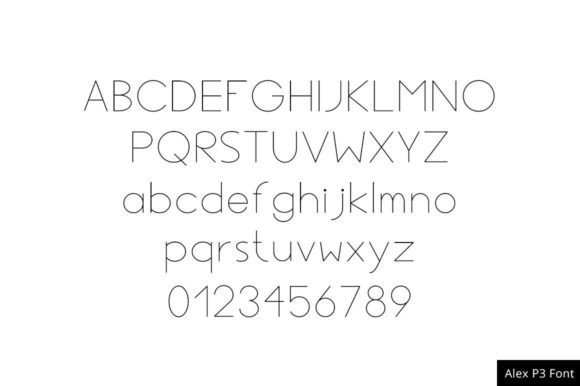
Introducing Alex P3 Font: The Ultimate Choice for Sleek and Modern Typography
In the world of design, typography plays a crucial role in conveying the message and aesthetic of a project. With numerous fonts available, finding the perfect one that combines style, simplicity, and sophistication can be a daunting task. This is where Alex P3 Font comes into play – a slim and minimalist sans serif font designed to elevate your creative projects with impeccable typography.
What Makes Alex P3 Font Stand Out?
Alex P3 Font is a masterpiece of modern typography, boasting a sleek and minimalist design that adapts seamlessly to various creative projects. Its sans serif structure gives it a clean and contemporary look, making it an ideal choice for designers and crafters who aim to convey a sense of sophistication and elegance.
The font’s slim lines and carefully crafted letterforms ensure excellent readability, even at smaller sizes. This feature makes Alex P3 Font perfect for use in a wide range of applications, from digital platforms like websites and mobile apps to print materials such as brochures, posters, and business cards.
Key Features of Alex P3 Font
- Slim and Minimalist Design: The font’s sleek lines and simple structure make it perfect for projects that require a touch of elegance and sophistication.
- Excellent Readability: Carefully crafted letterforms ensure that the text remains clear and easy to read, even at smaller sizes.
- Sans Serif Structure: The font’s clean and contemporary look makes it suitable for a wide range of creative projects.
- Versatility: Alex P3 Font can be used in various applications, from digital platforms to print materials.
Who Can Benefit from Using Alex P3 Font?
Alex P3 Font is a versatile typography solution that caters to the needs of various professionals and creatives, including:
- Graphic Designers: Those who work on branding, advertising, and marketing materials can benefit from the font’s sleek and modern design.
- Web Designers and Developers: The font’s excellent readability and clean structure make it perfect for use on websites, mobile apps, and other digital platforms.
- Crafters and Makers: Those who create handmade products, such as jewelry, crafts, or artwork, can use Alex P3 Font to add a touch of elegance to their product labels, packaging, or marketing materials.
- Art Directors: The font’s sophisticated design makes it suitable for use in high-end advertising campaigns, editorials, and other creative projects.
Tips for Using Alex P3 Font Effectively
To get the most out of Alex P3 Font, consider the following tips:
- Pair it with Other Fonts: Experiment with combining Alex P3 Font with other fonts to create a unique and visually appealing typography scheme.
- Adjust Font Sizes: Play with different font sizes to create visual hierarchy and emphasize important information.
- Use it for Headings and Body Text: The font’s excellent readability makes it suitable for use in both headings and body text.
Alex P3 Font is a powerful typography tool that can elevate your creative projects with its sleek and modern design. Its slim and minimalist structure, excellent readability, and versatility make it perfect for use in various applications. Whether you’re a designer, crafter, or art director, Alex P3 Font is an excellent choice for those who strive for impeccable typography.